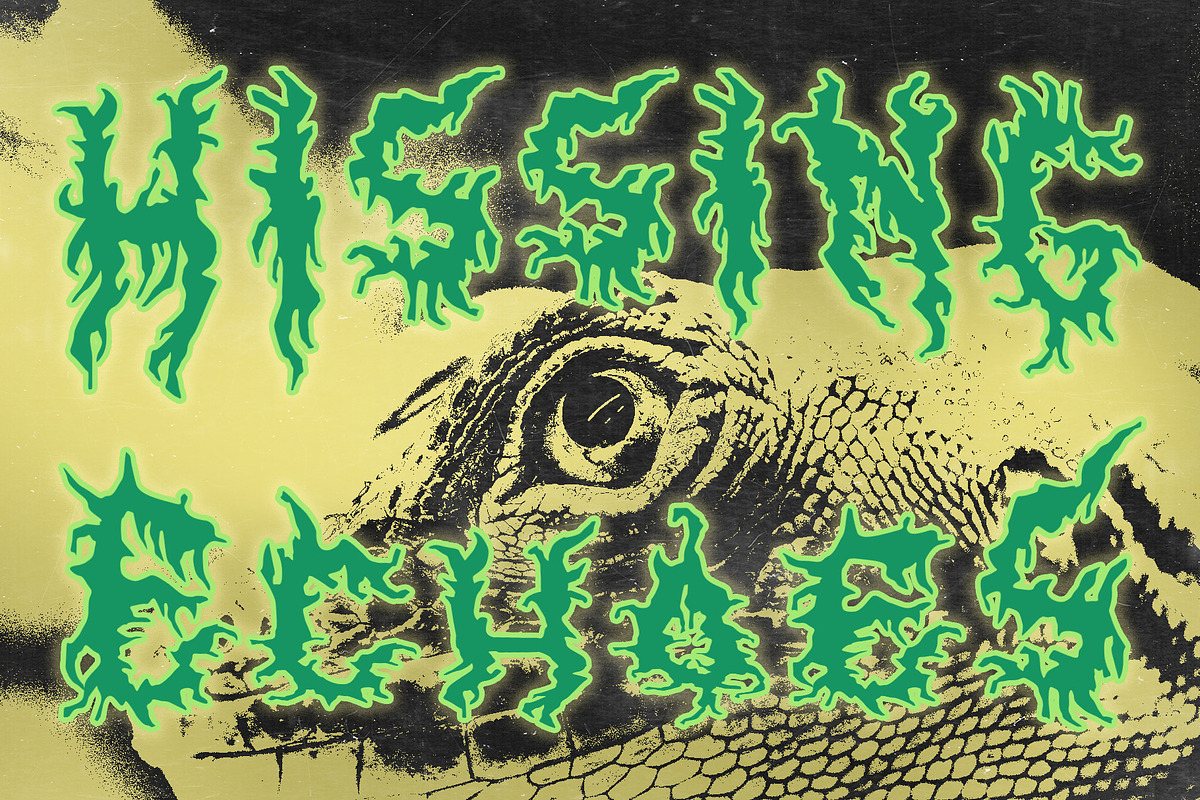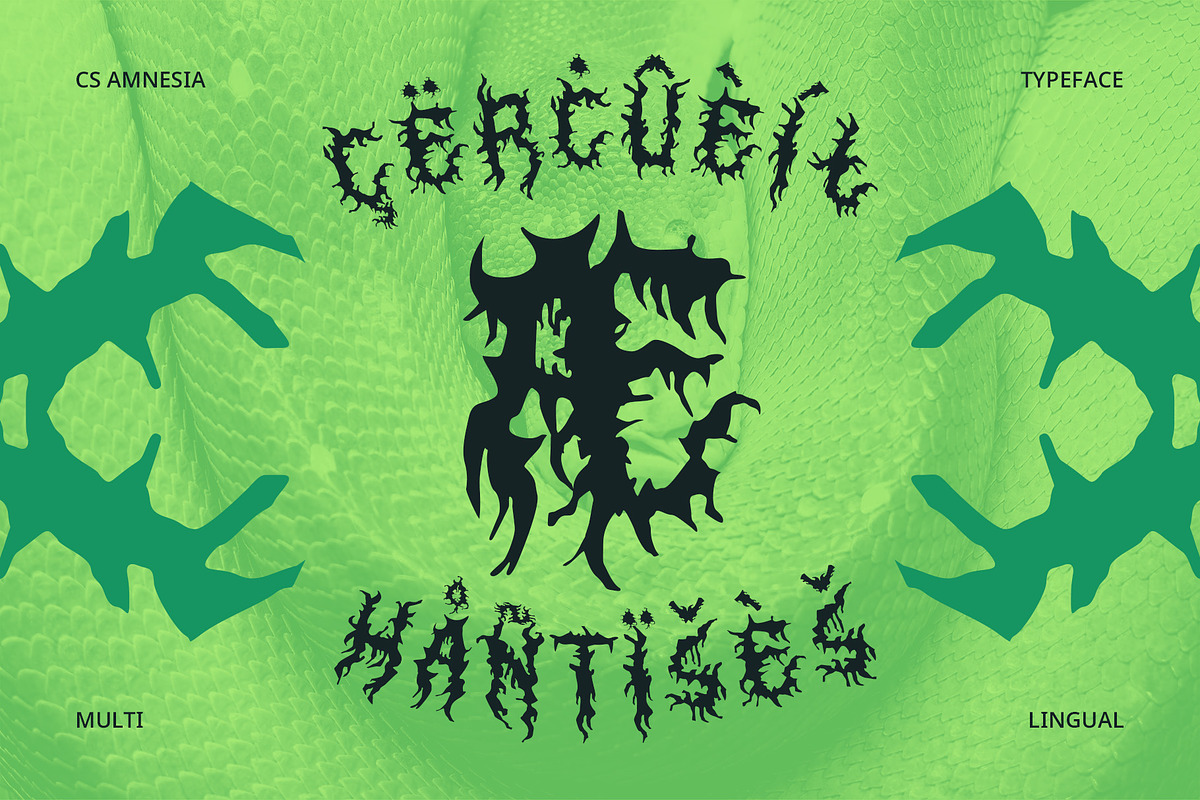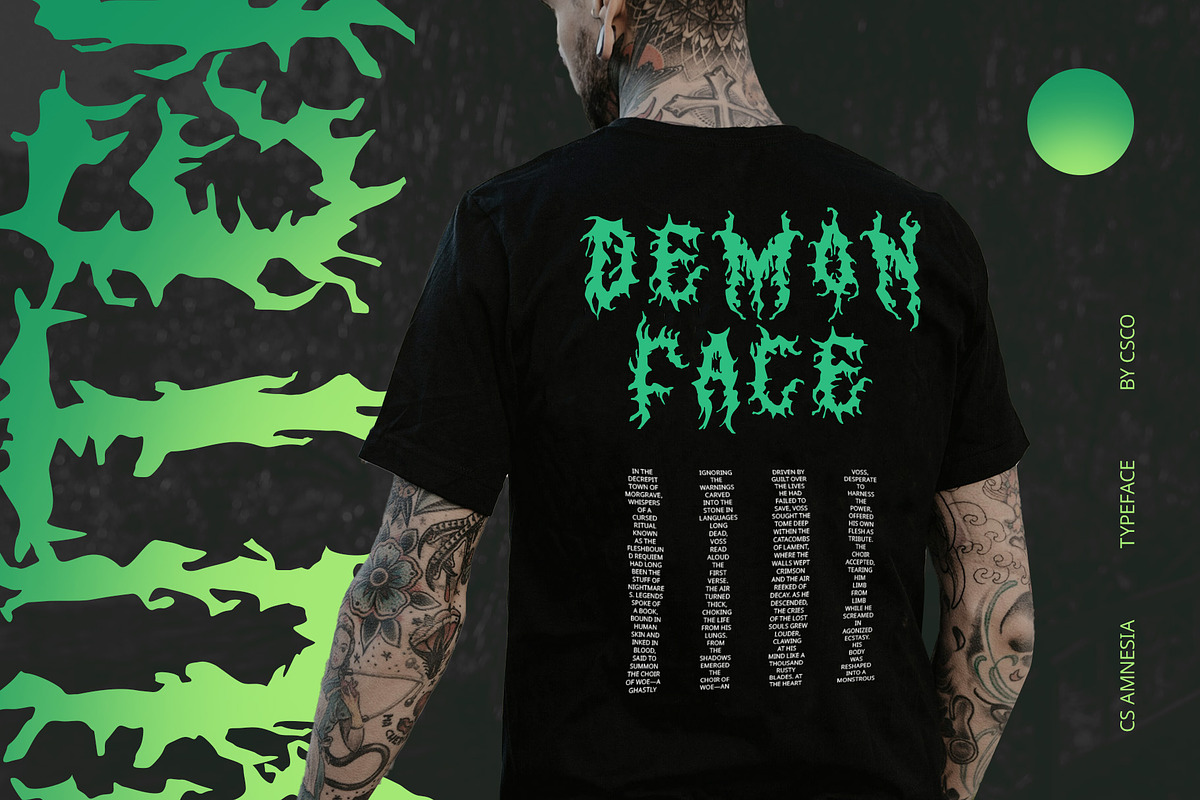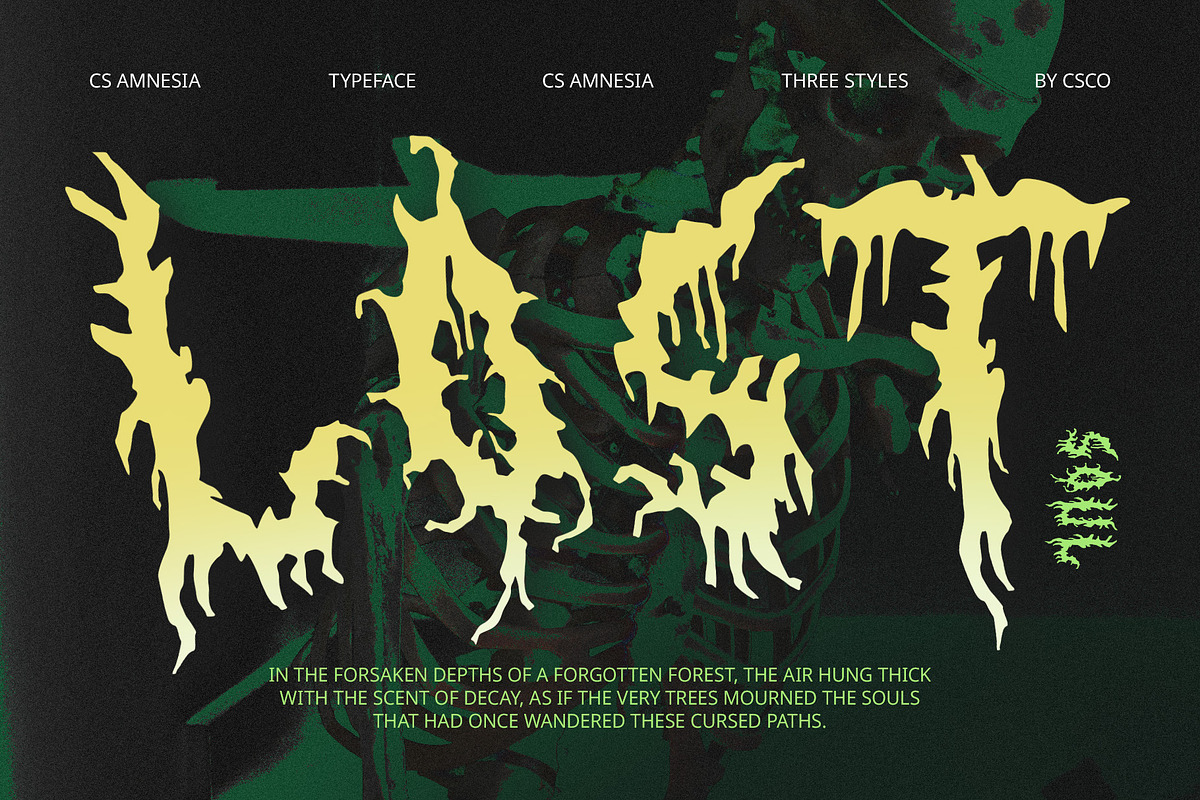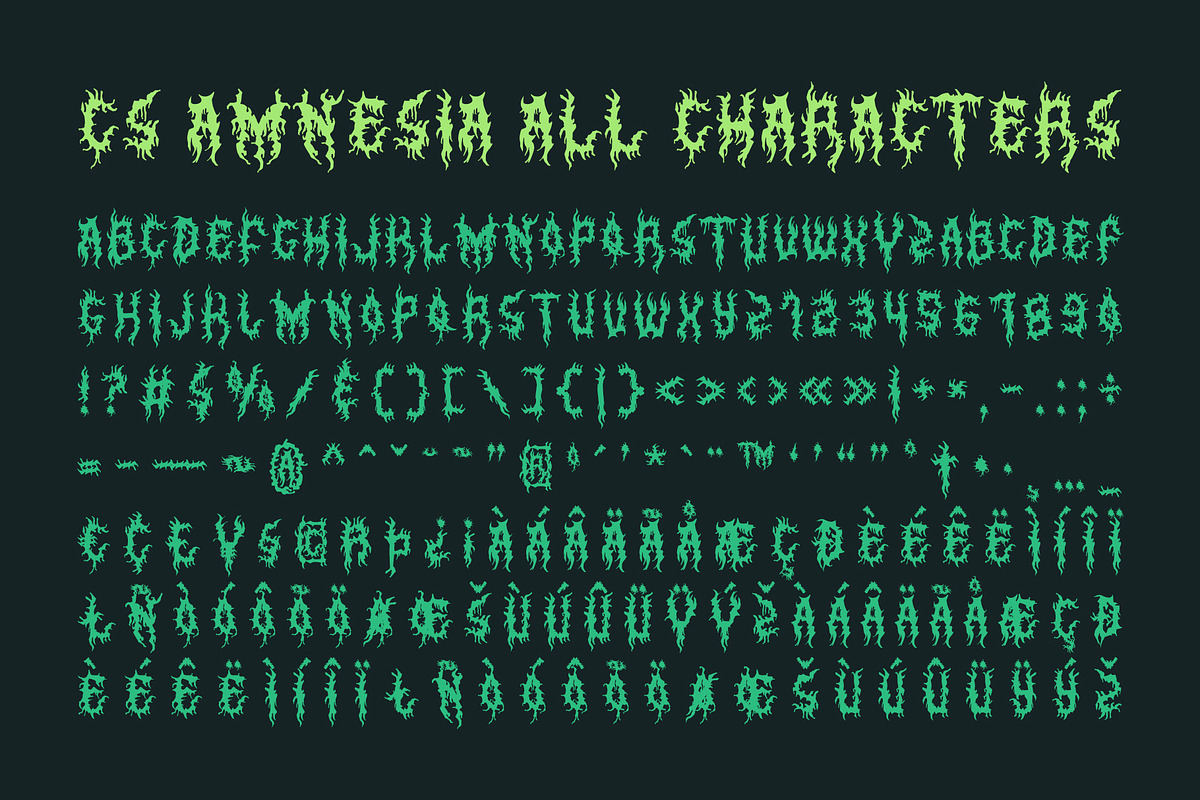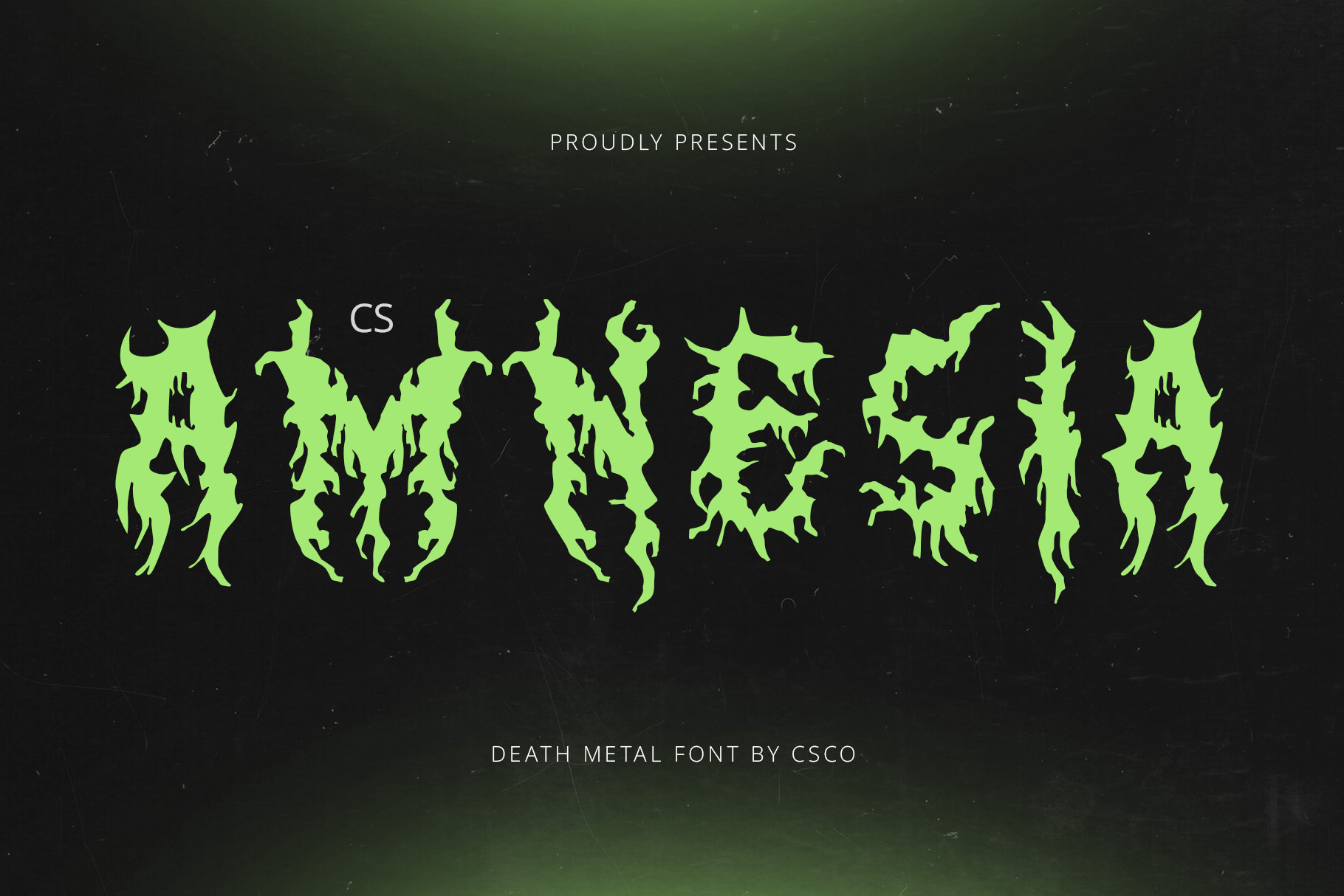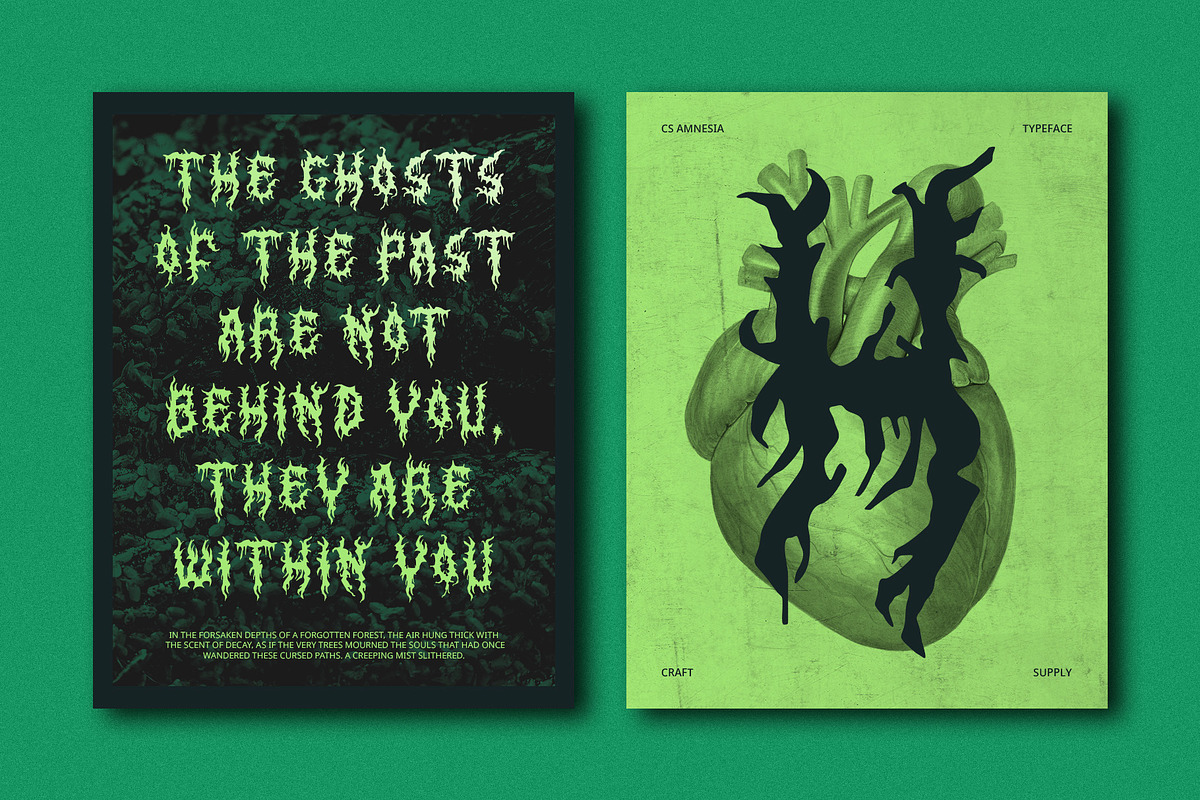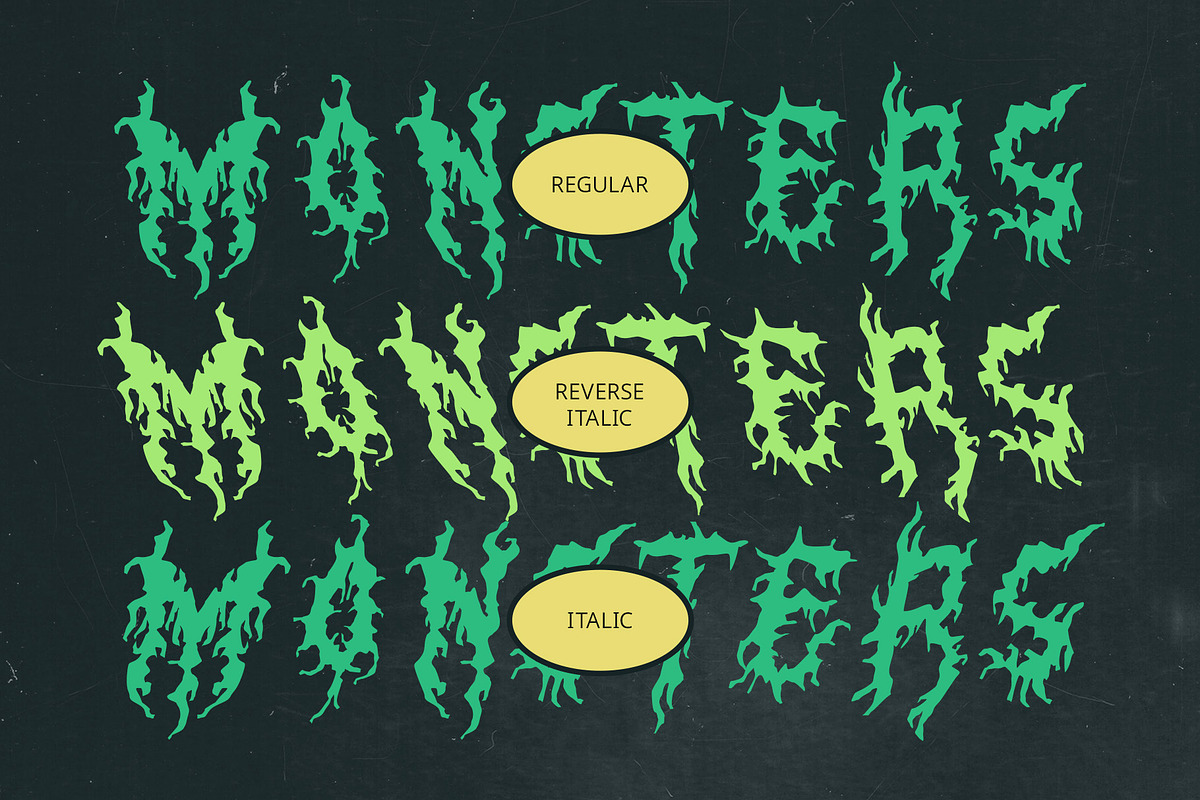
CS Amnesia – Black Metal Font
CS Amnesia: Dark, Intricate Black Metal Font
Sharp, Ornate Details with Gothic Influence CS Amnesia is a black metal display font that stands out for its sharp, intricate details and ornate design elements that invoke a sense of dark mystery. Drawing inspiration from gothic aesthetics and occult symbolism, this font is imbued with ancient and mystical energy. The angular, jagged shapes, paired with delicate ornamental flourishes, give it an intense and haunting visual appeal.
Fragmented Letterforms with a Decayed, Distressed Look The letterforms of CS Amnesia are deliberately fragmented and distorted, with an uneven, decayed appearance that gives the font a sense of ancient ruin. The sharp, jagged edges and gaps throughout the characters evoke decay and destruction, making it a perfect visual representation of decline or upheaval. With every curve and angle, the font expresses chaos, aggression, and rebellion, while maintaining a sense of rich detail.
Perfect for Black Metal, Gothic, and Occult Designs CS Amnesia is perfectly suited for the black metal music genre, as well as gothic, occult, and dark-themed designs. Its detailed, heavy distortion makes it the ideal choice for black metal band logos, concert posters, album covers, and any visual work that needs to evoke a sense of mystery, power, and darkness.
- CS Amnesia Regular
- CS Amnesia Italic
- CS Amnesia Reverse Italic